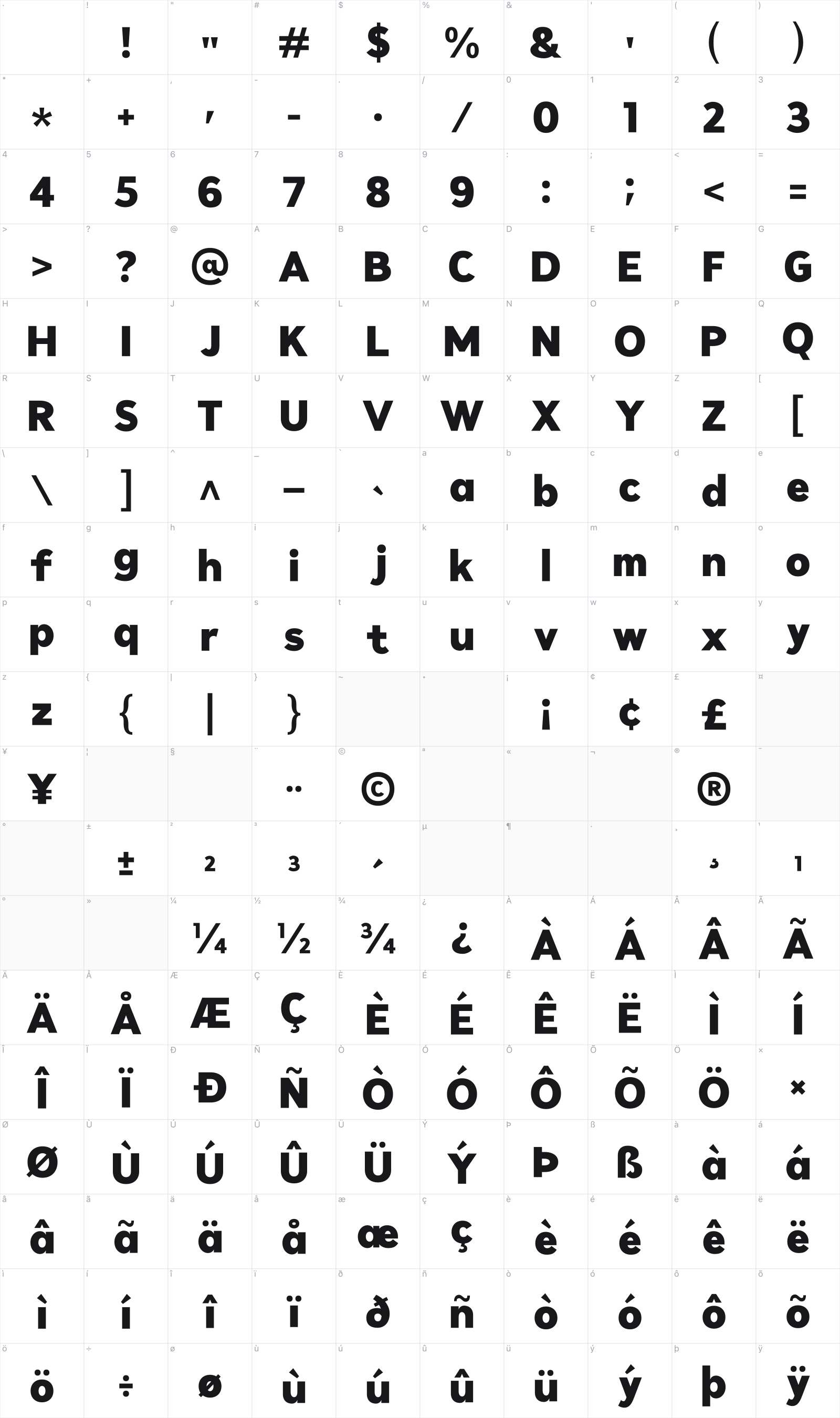
Figerona
by Faqih Fawaji
Figerona is a heavy rounded sans-serif from Drizy Studio with soft terminals and a bold, wide stance. The low stroke contrast and generous proportions give it a modern, consumer-friendly warmth without sacrificing visual authority. Strong choice for logos, packaging, and large-format headlines.